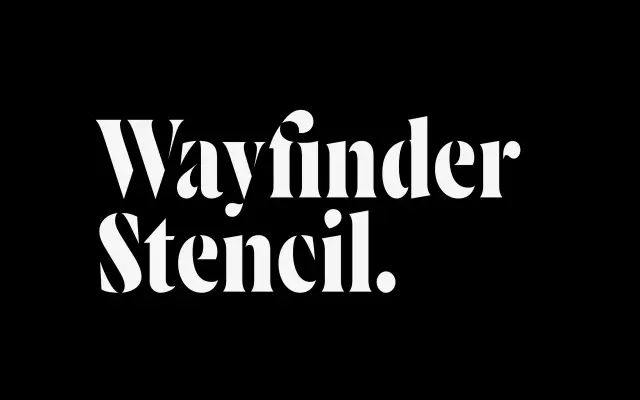
Wayfinder Stencil
A high-contrast stencil serif in seven weights with italics, aimed at fashion, tech and packaging branding.
Wayfinder Stencil CF pairs dramatic curves and strong stroke contrast with stencil cuts across 14 styles from Thin to Heavy. The family is built for logos, headlines and packaging where the interrupted strokes read as a design feature rather than a constraint. Stylistic alternates, swash characters and oldstyle figures extend its range for more expressive typographic applications.
A high-contrast stencil serif with dramatic curves, positioned explicitly for headlines, branding and packaging rather than continuous text. The stencil cuts and strong contrast place it firmly in the display category.